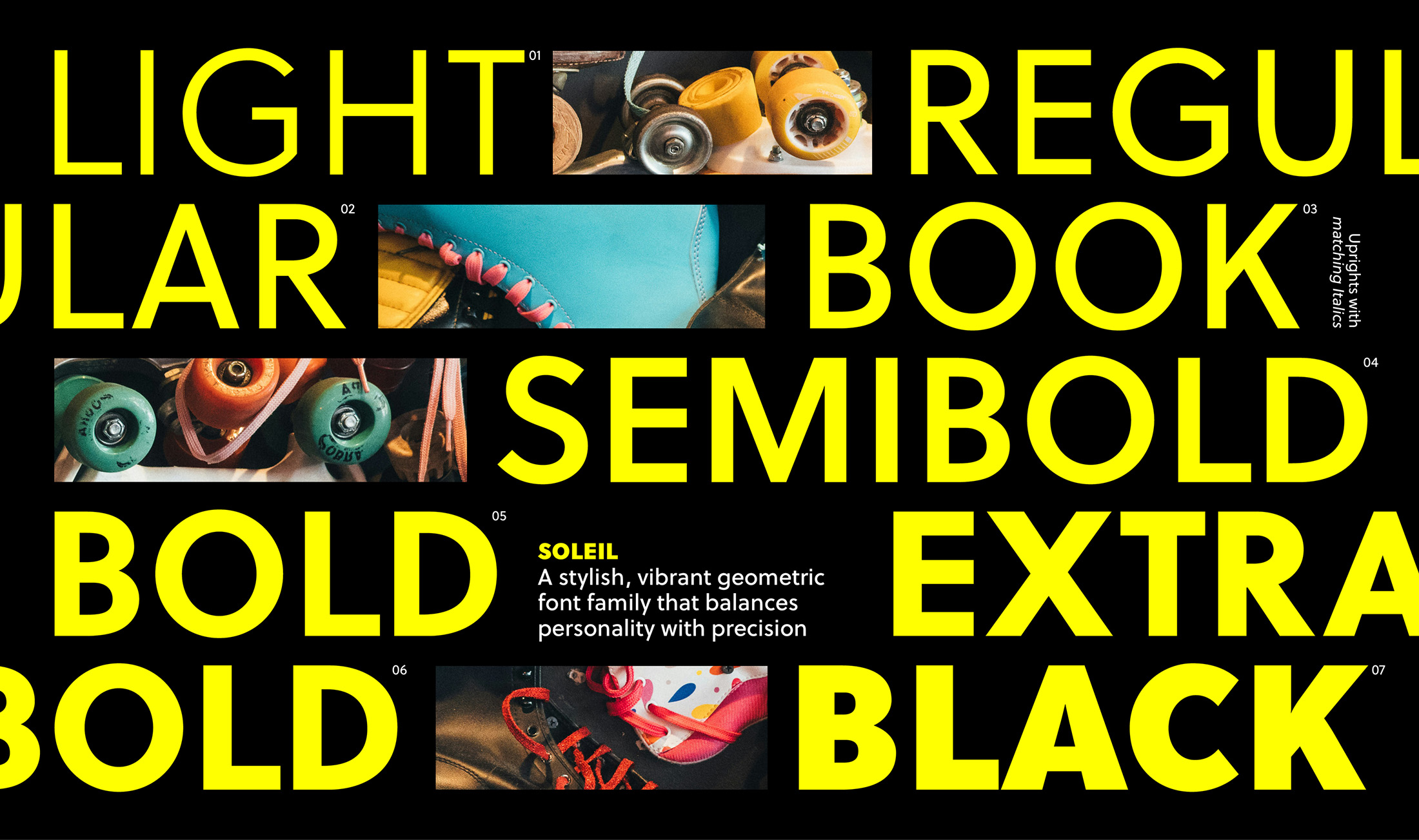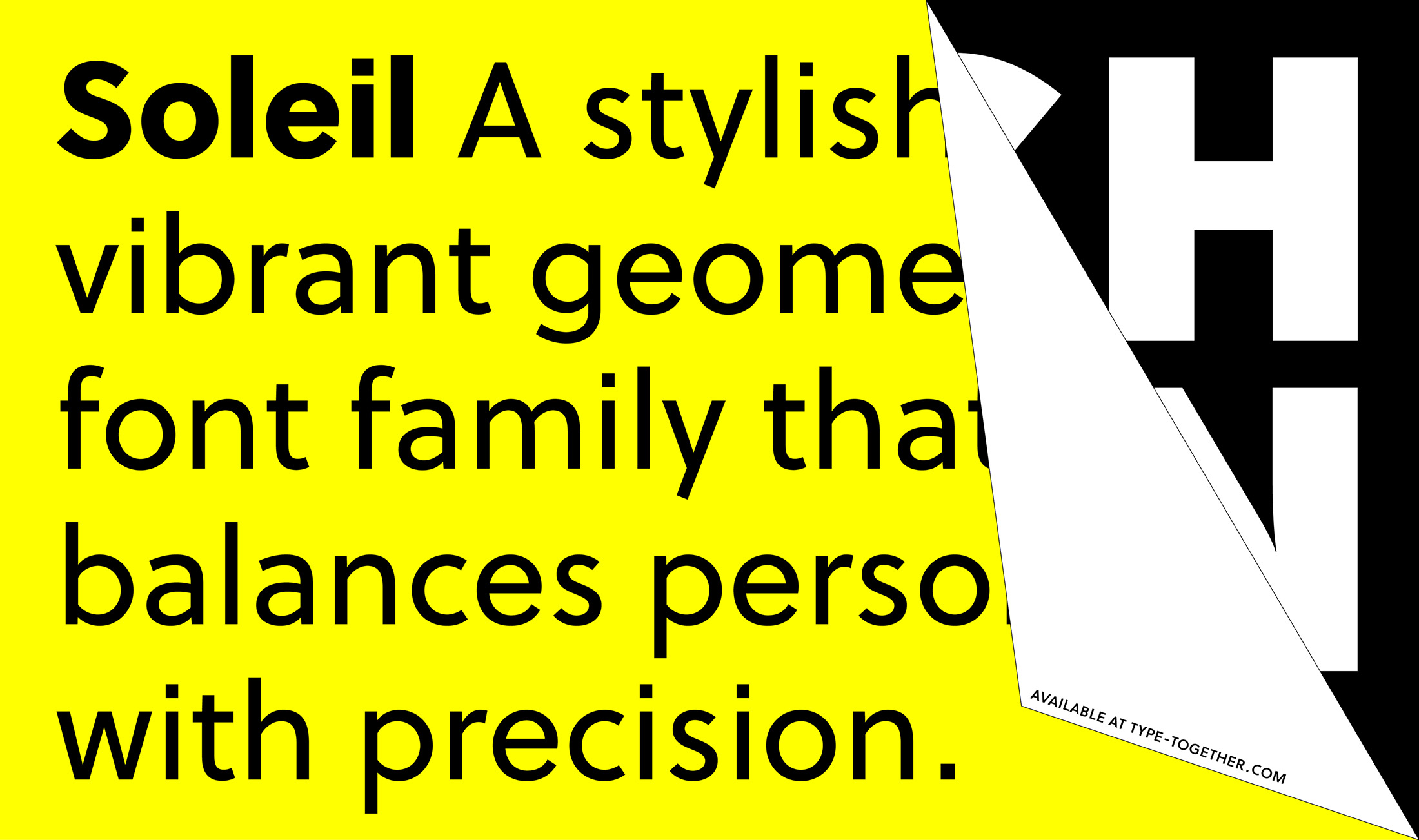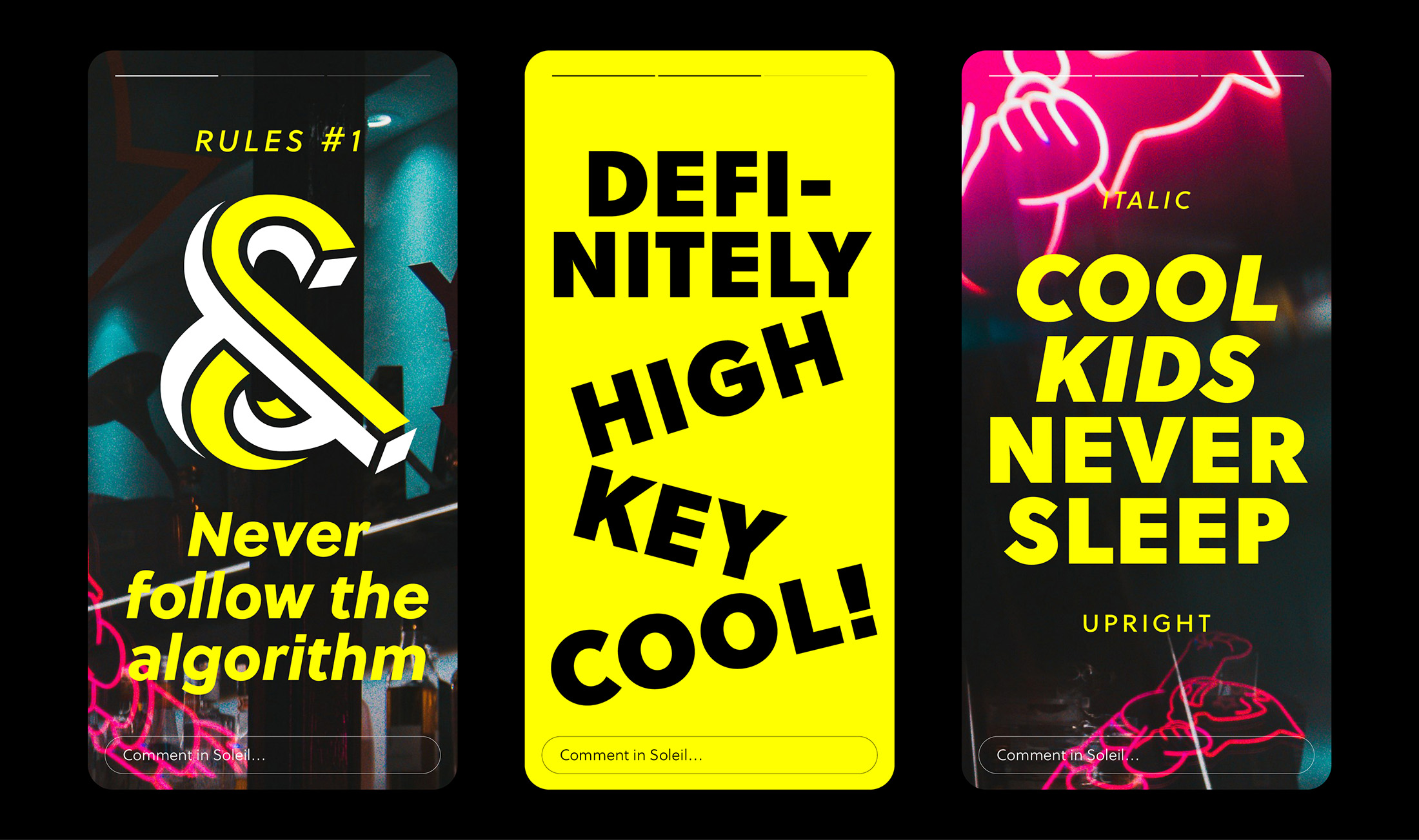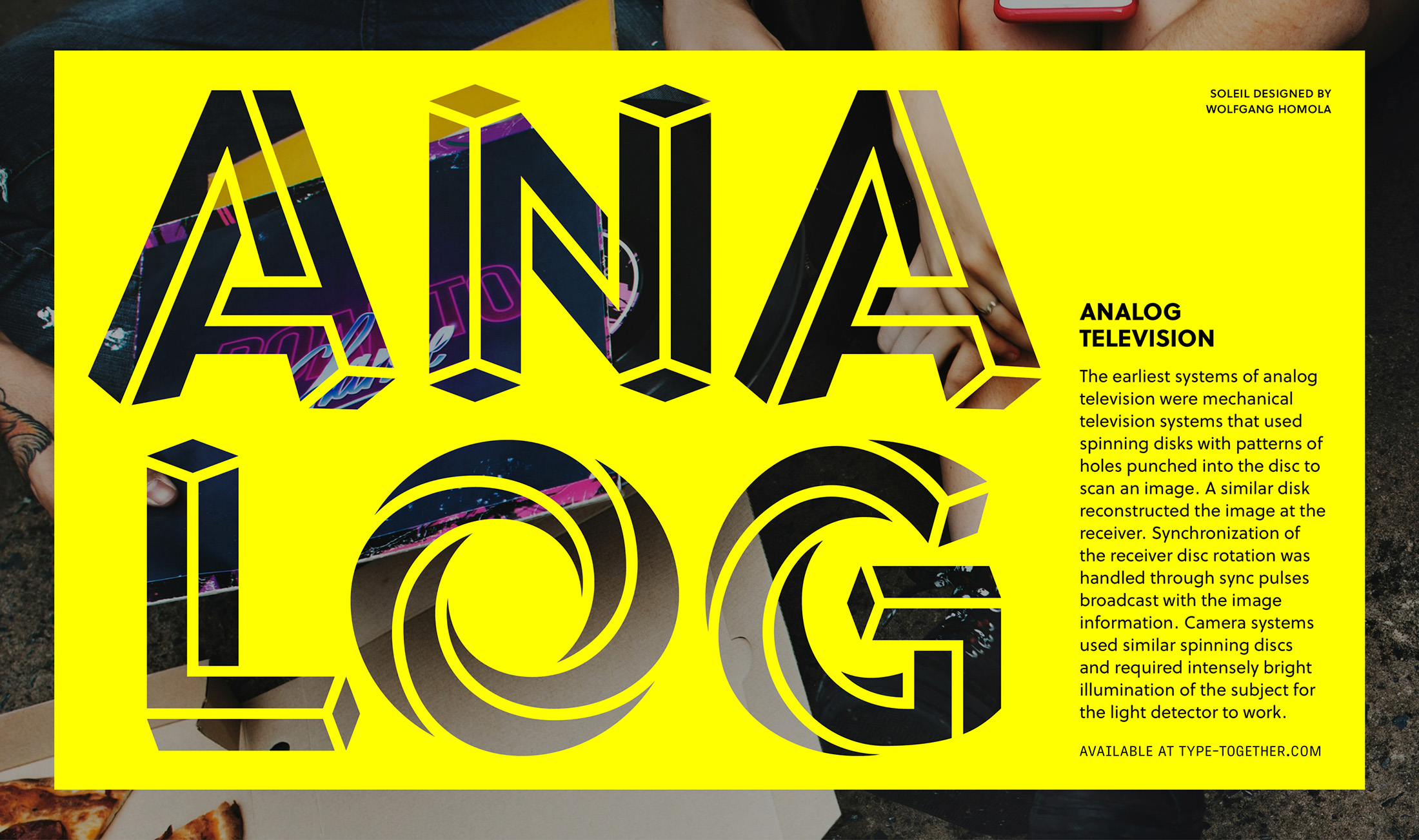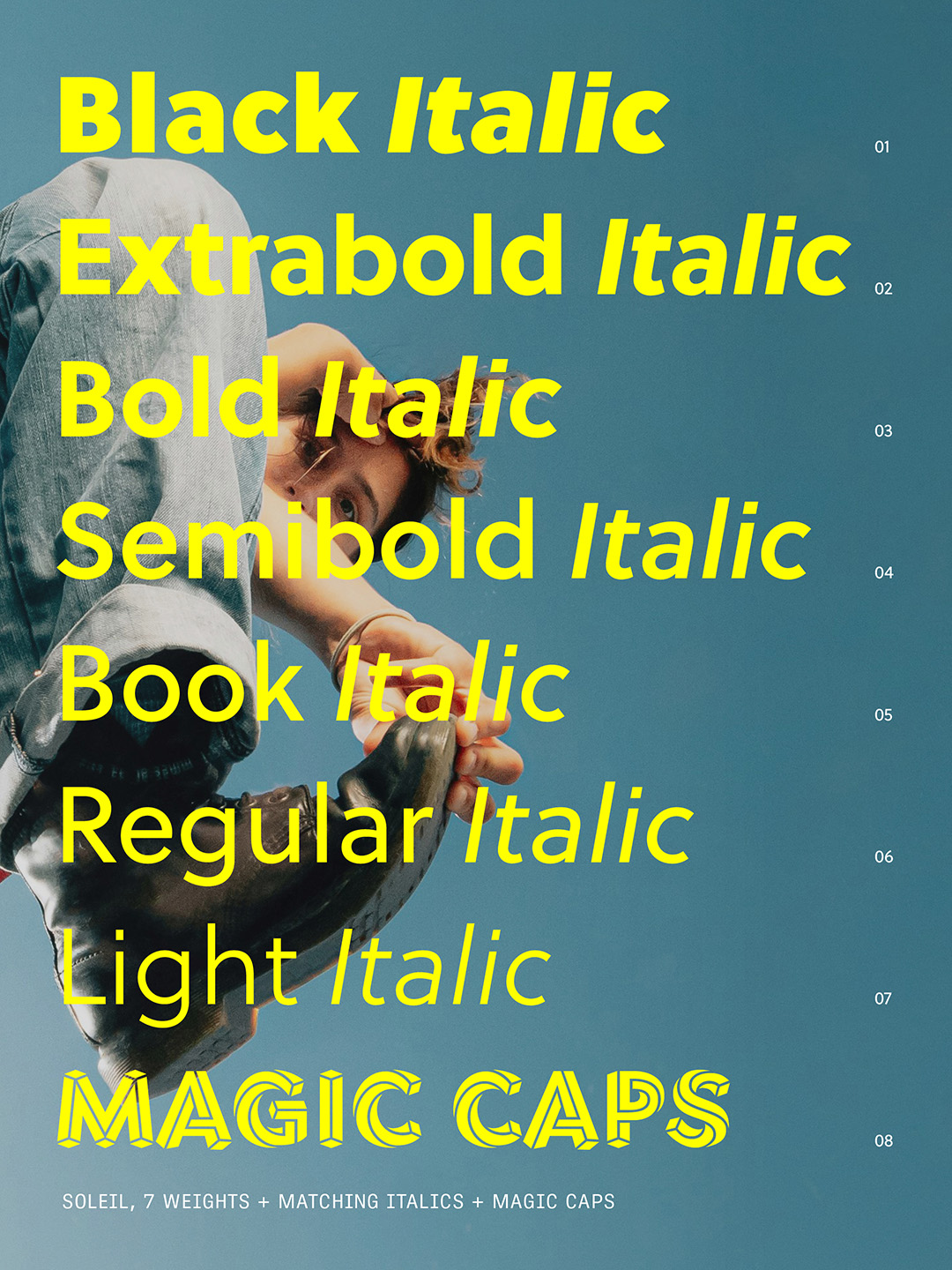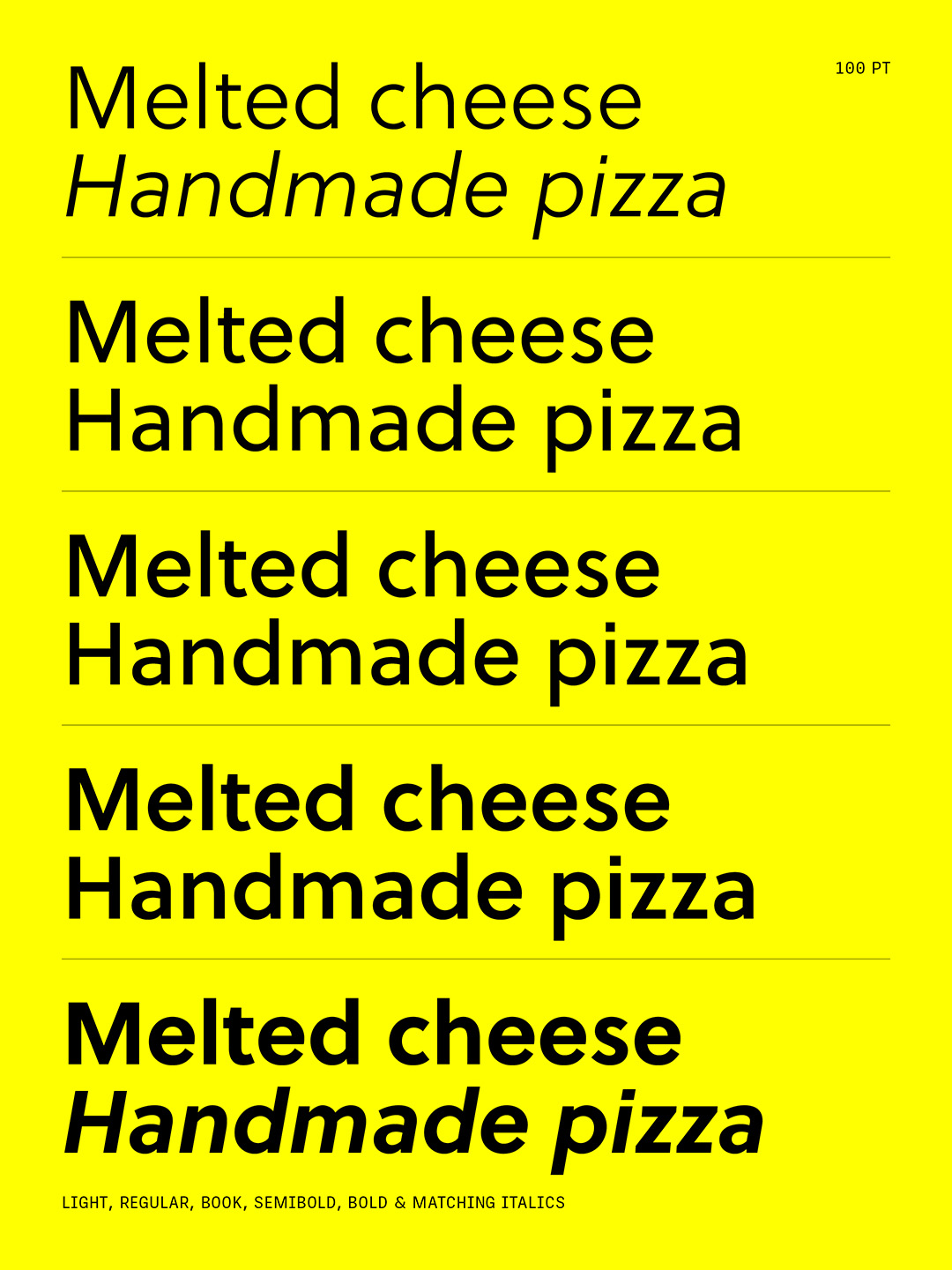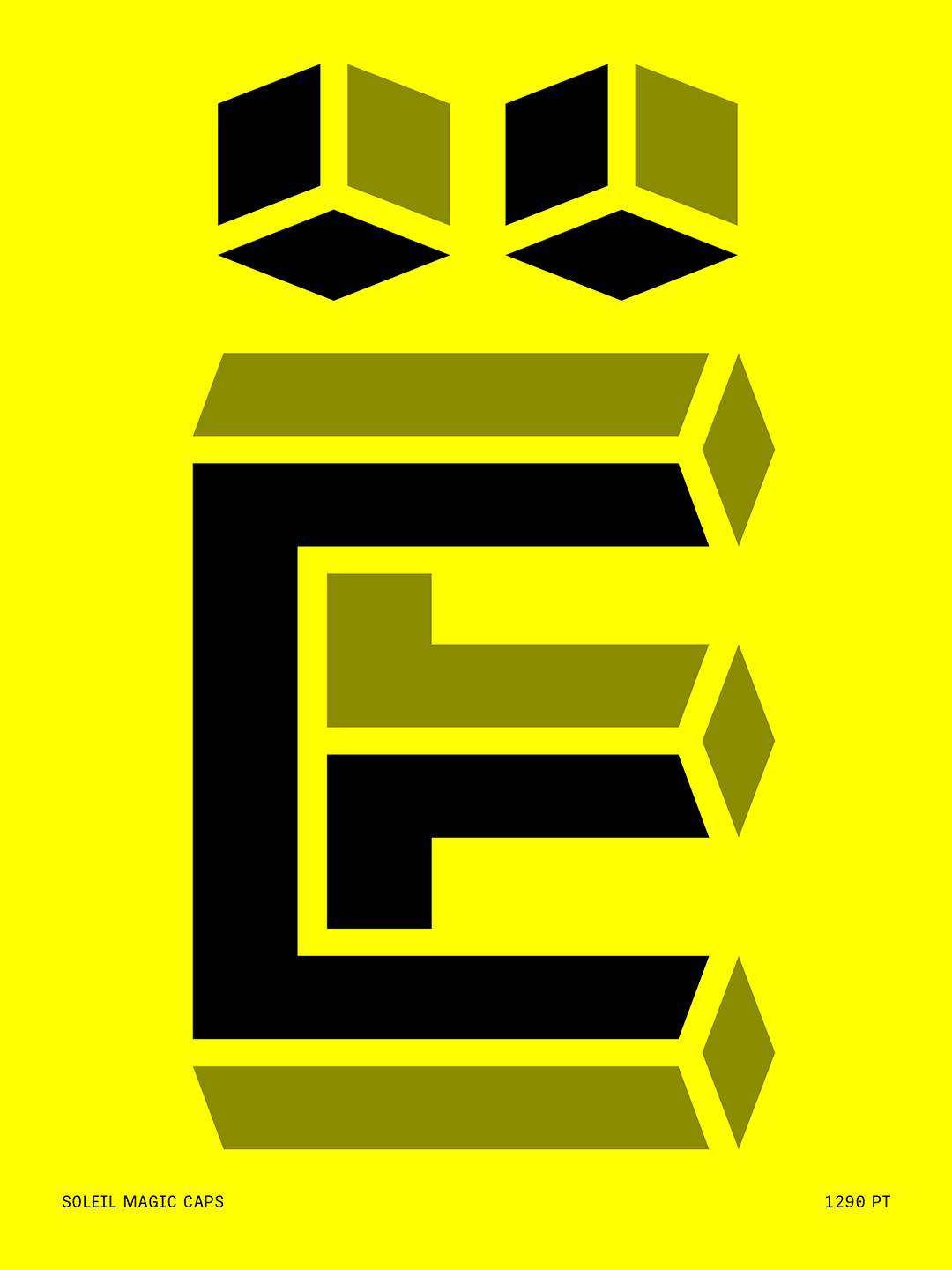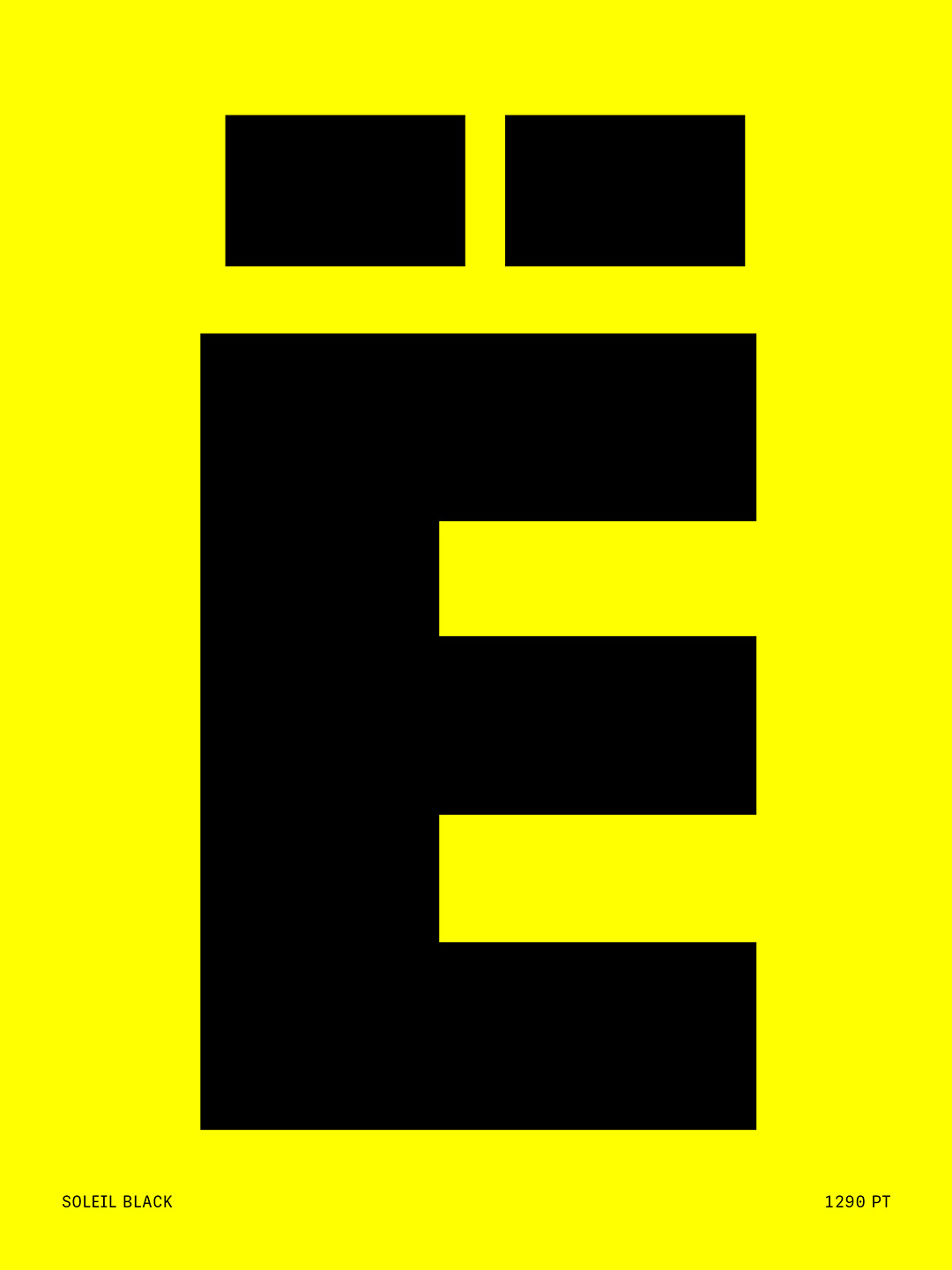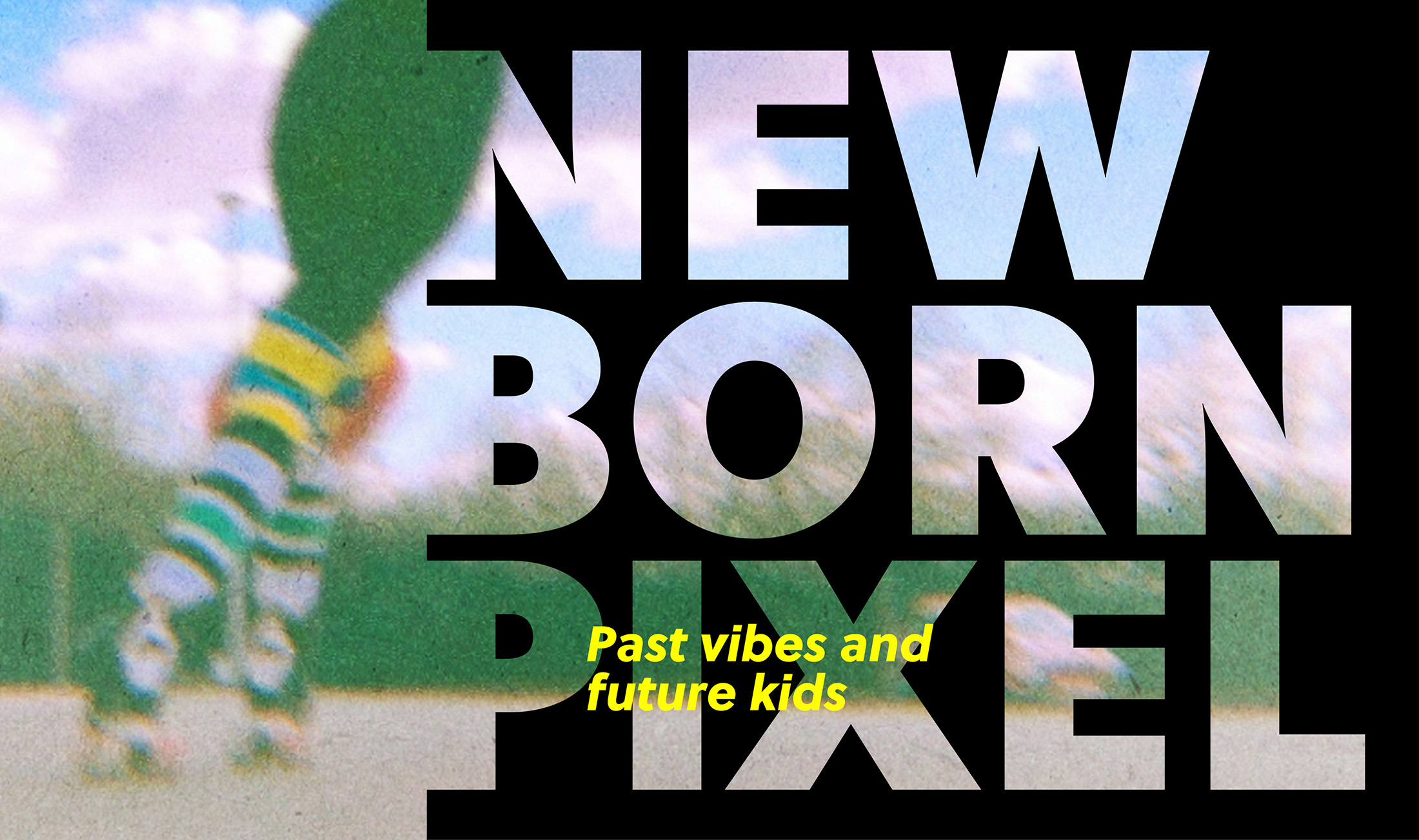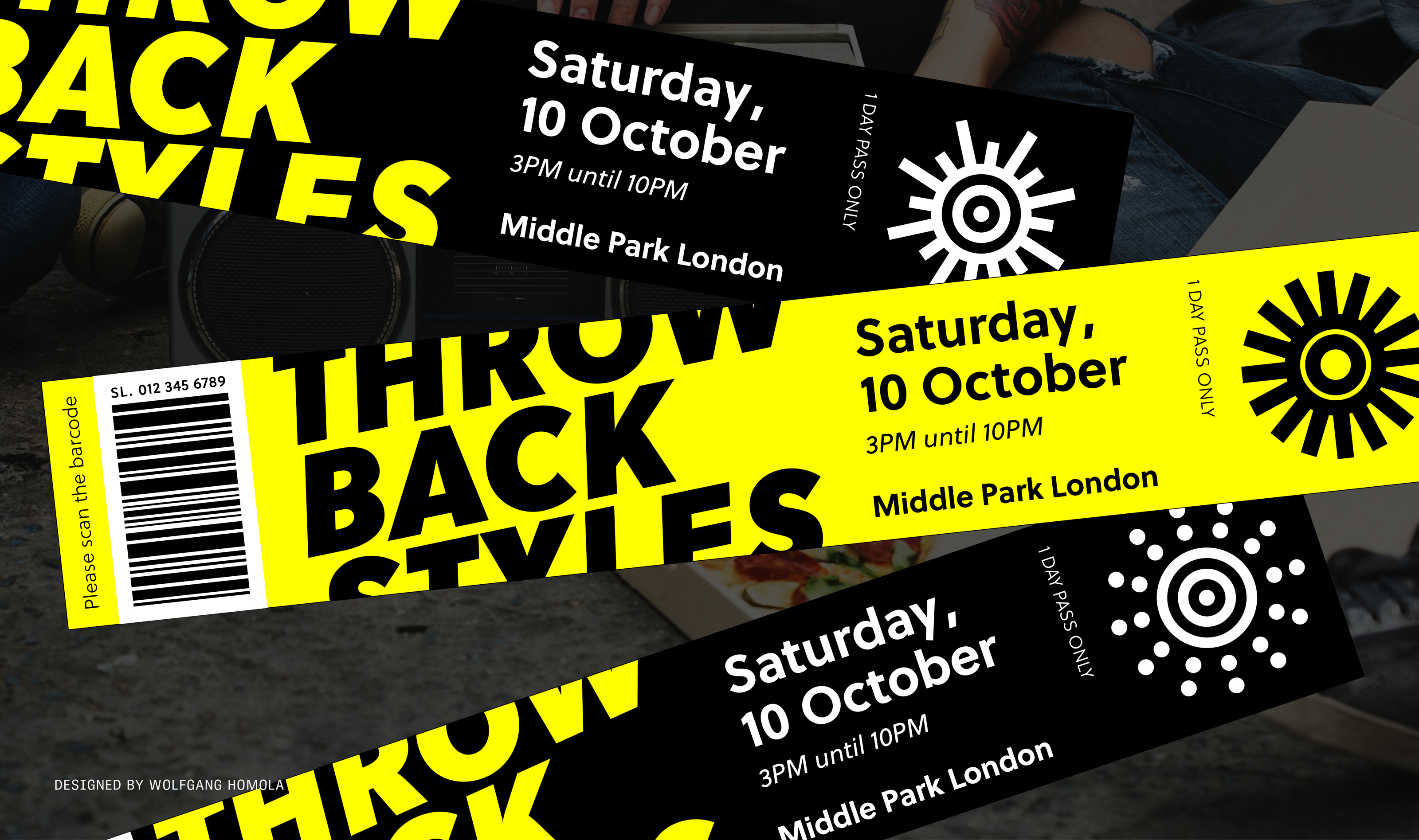
Soleil’s dazzling 2026 update
Wolfgang Homola’s geometric sans has always deserved a second look. Now with its modernisation, its thoughtful, clever design is more relevant than ever.
The Soleil type family was originally created for a wayfinding system in a government building in Vienna, but it soon became clear that the uses for the geometric sans serif family went beyond providing orientation for the Viennese. The type and graphic designer Wolfgang Homola achieved a rare feat by creating a geometric sans with a dynamic, lively design, useful in a variety of contexts, from branding and corporate identity prorgrammes to editorial design. And wayfinding, of course.
One of Soleil’s most distinguishing characteristics is its MC Escher-like display style called Magic Caps. It’s perfect for branding and merchandising when something eye-catching is required. It truly must be seen to be believed.